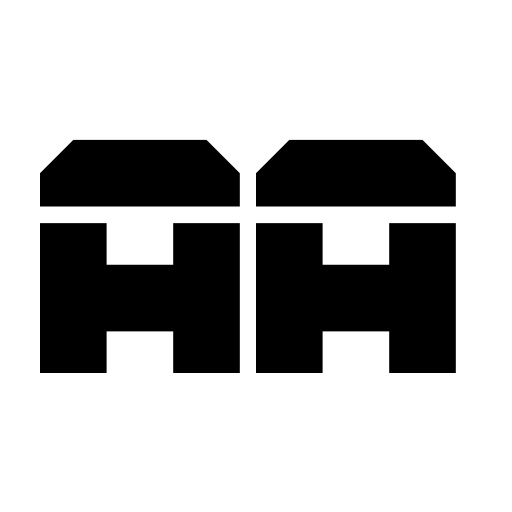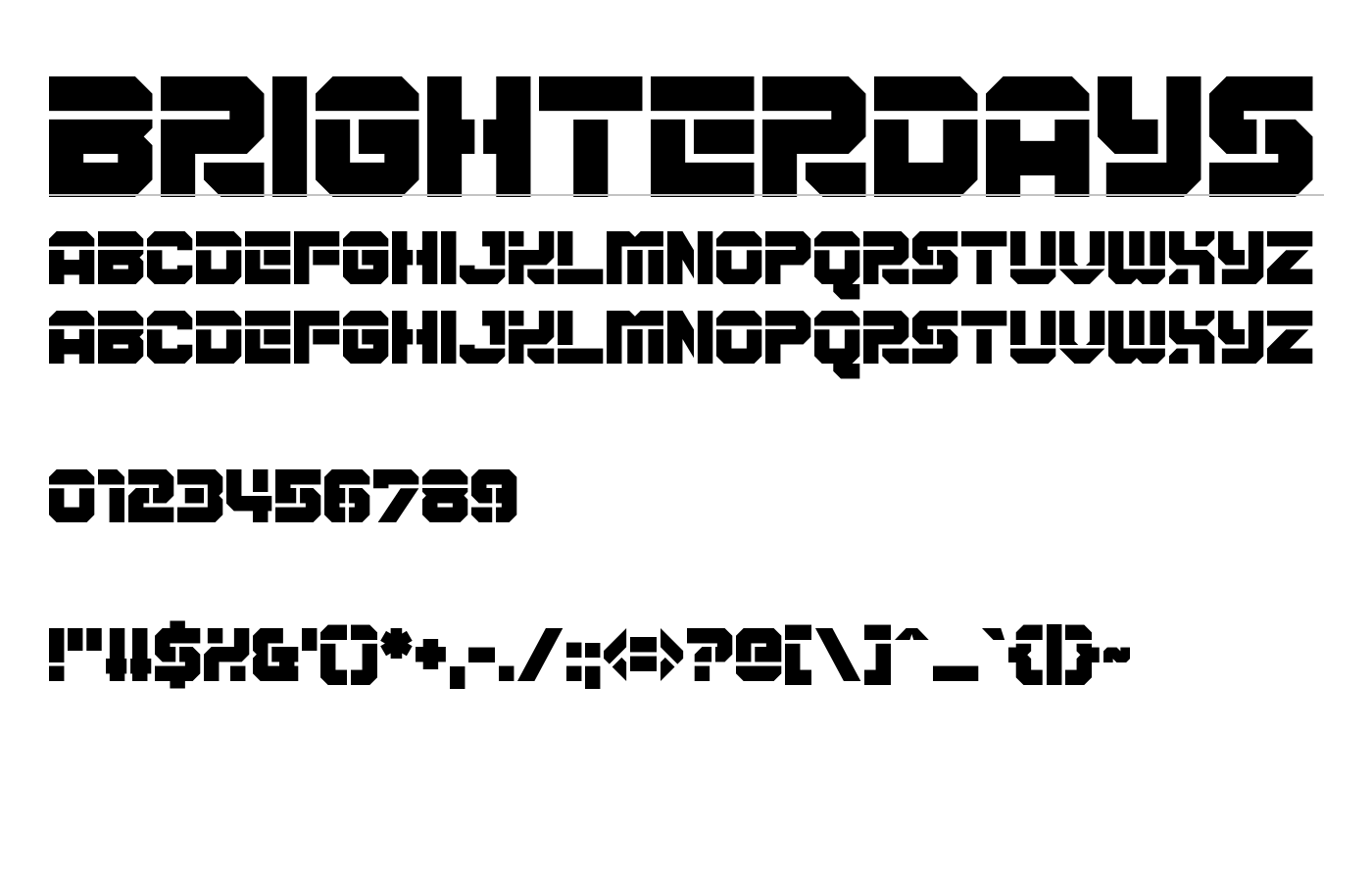
Brighterdays is a bold, geometric display font with sharp, angular edges and a futuristic, blocky style. Its strong, condensed letterforms create a striking presence, making it ideal for eye-catching headlines, logos, and posters where a modern and tech-inspired vibe is desired. This font works best in creative, digital, and urban branding contexts that demand a bold and unconventional look.
Brighterdays Font
About Brighterdays Font
| Font family | Brighterdays Font |
| Designer | Allison J James |